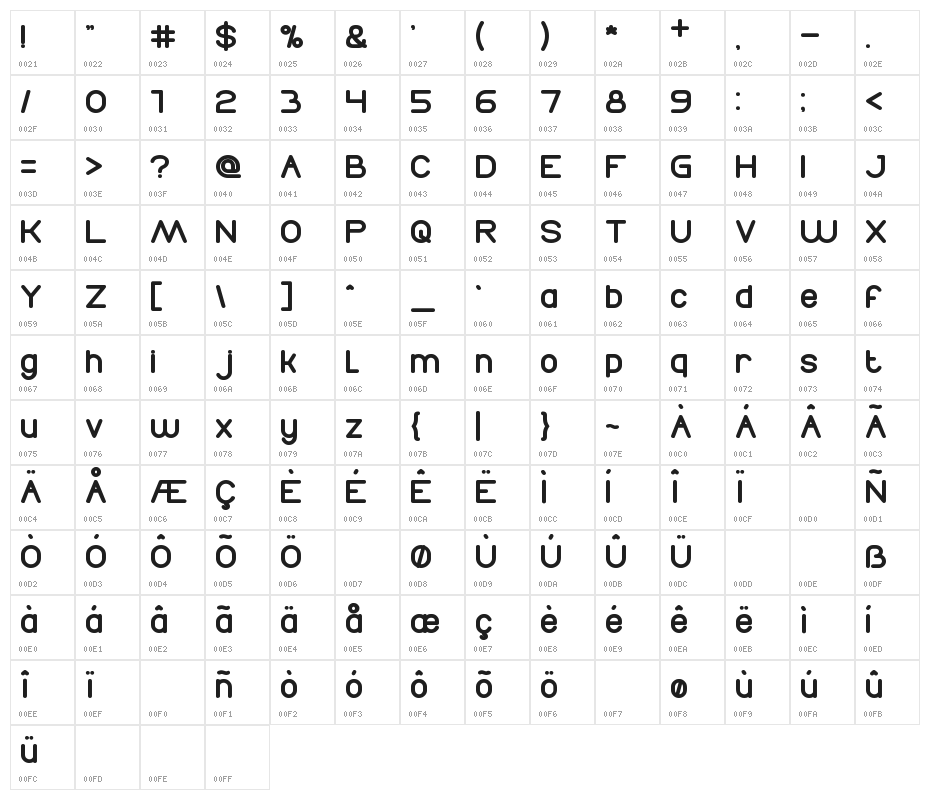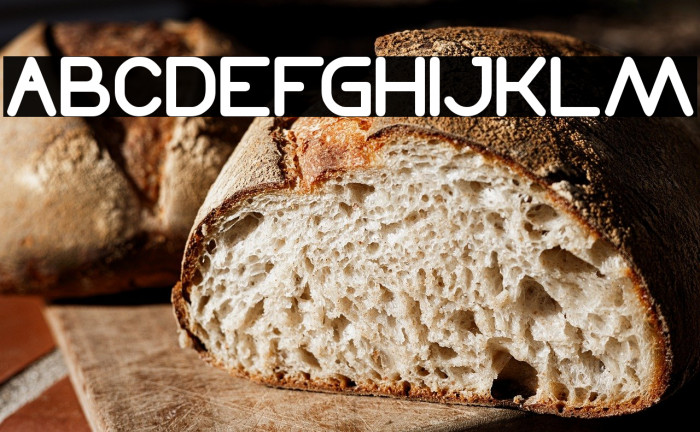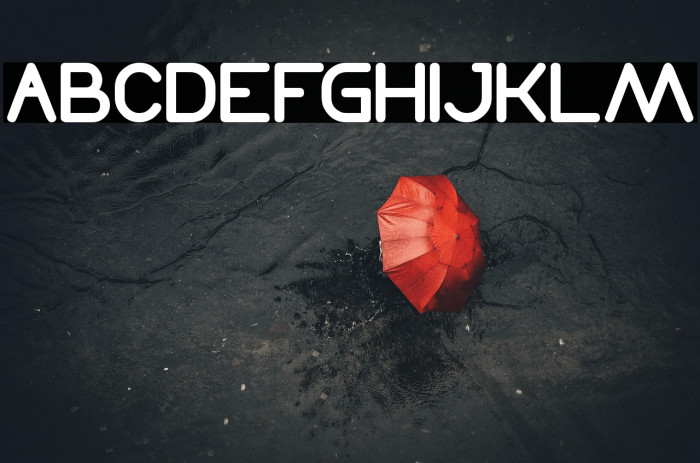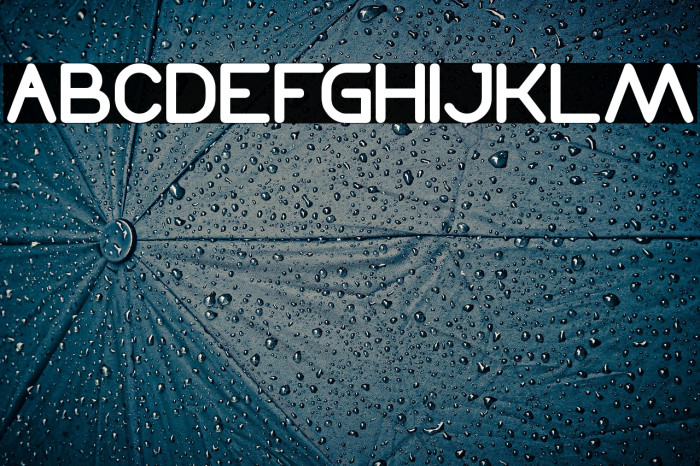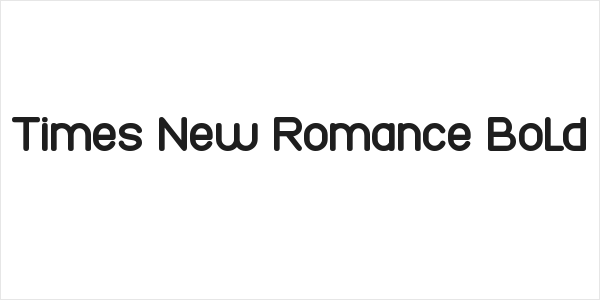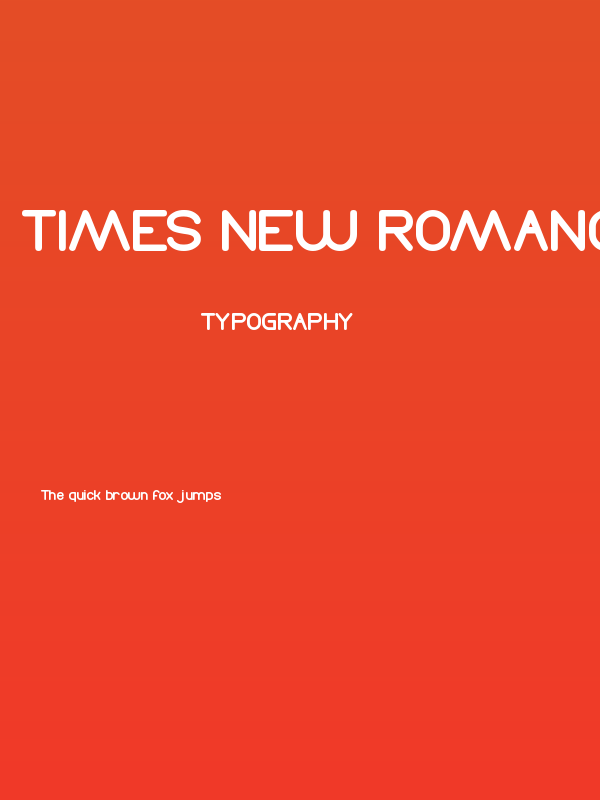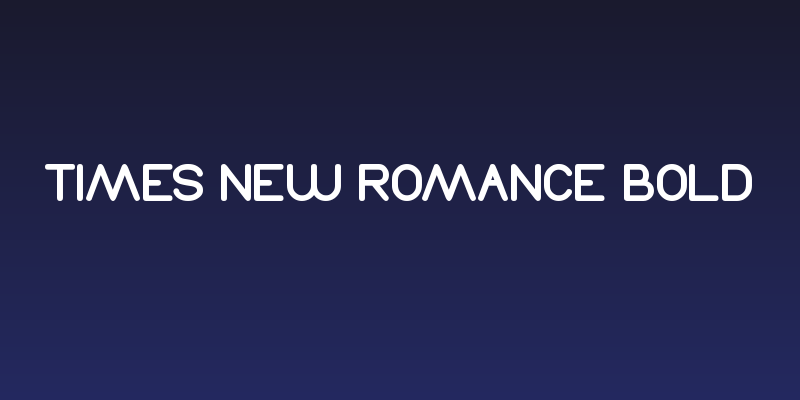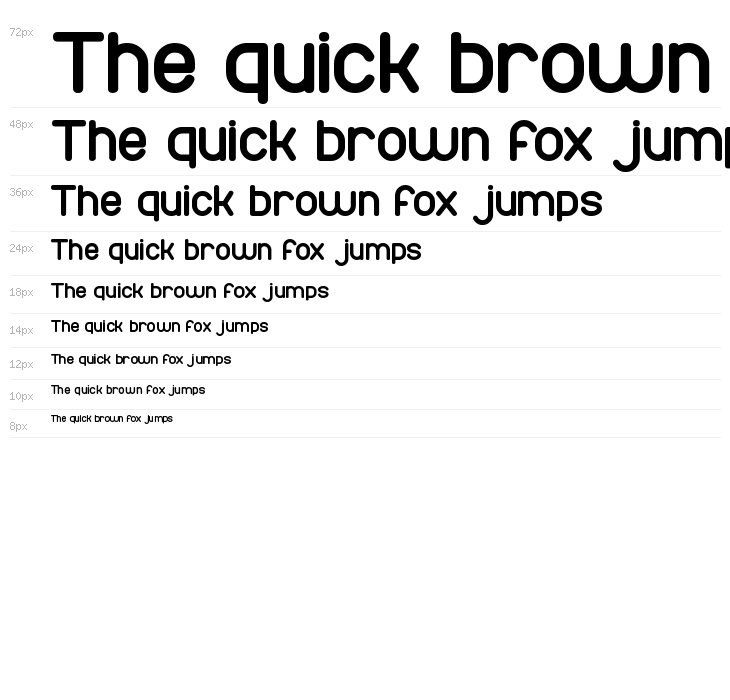
Times New Romance Bold Font
Times New Romance Bold Description
This font features a bold, rounded style with smooth curves and a modern aesthetic. The uppercase letters are uniform in height, while the lowercase letters maintain a consistent baseline, offering a harmonious appearance. The numerals are clear and easy to read, with a similar rounded design that complements the alphabetic characters. Special characters are well-integrated, maintaining the overall rounded and bold theme. The font's design is clean and approachable, making it suitable for a variety of applications where readability and a friendly tone are desired.
| Use Case | Headlines, Logos, Digital Interfaces |
| Proposed Projects | Ideal for branding, signage, children's books, and digital interfaces where clarity and friendliness are key. |